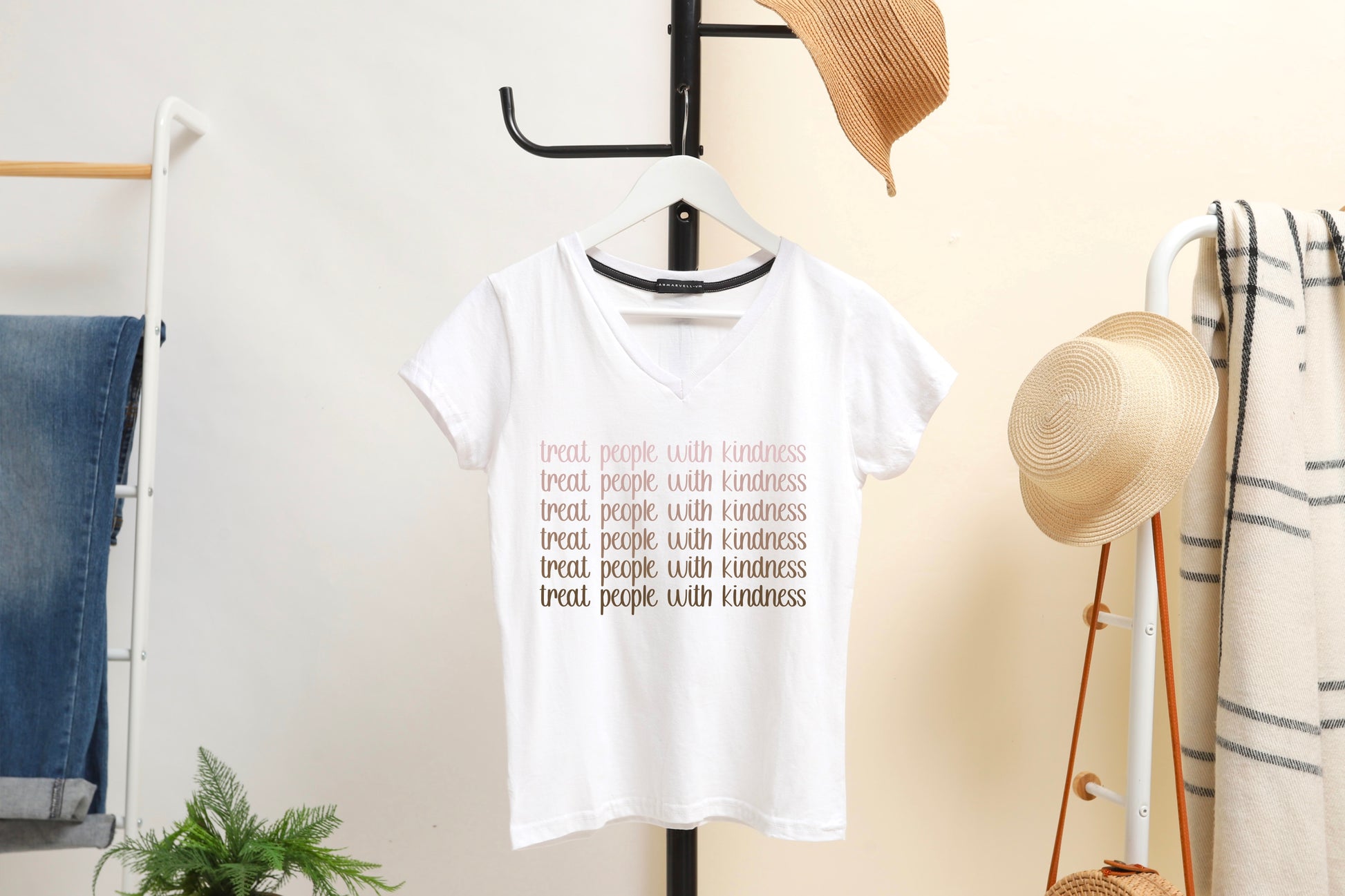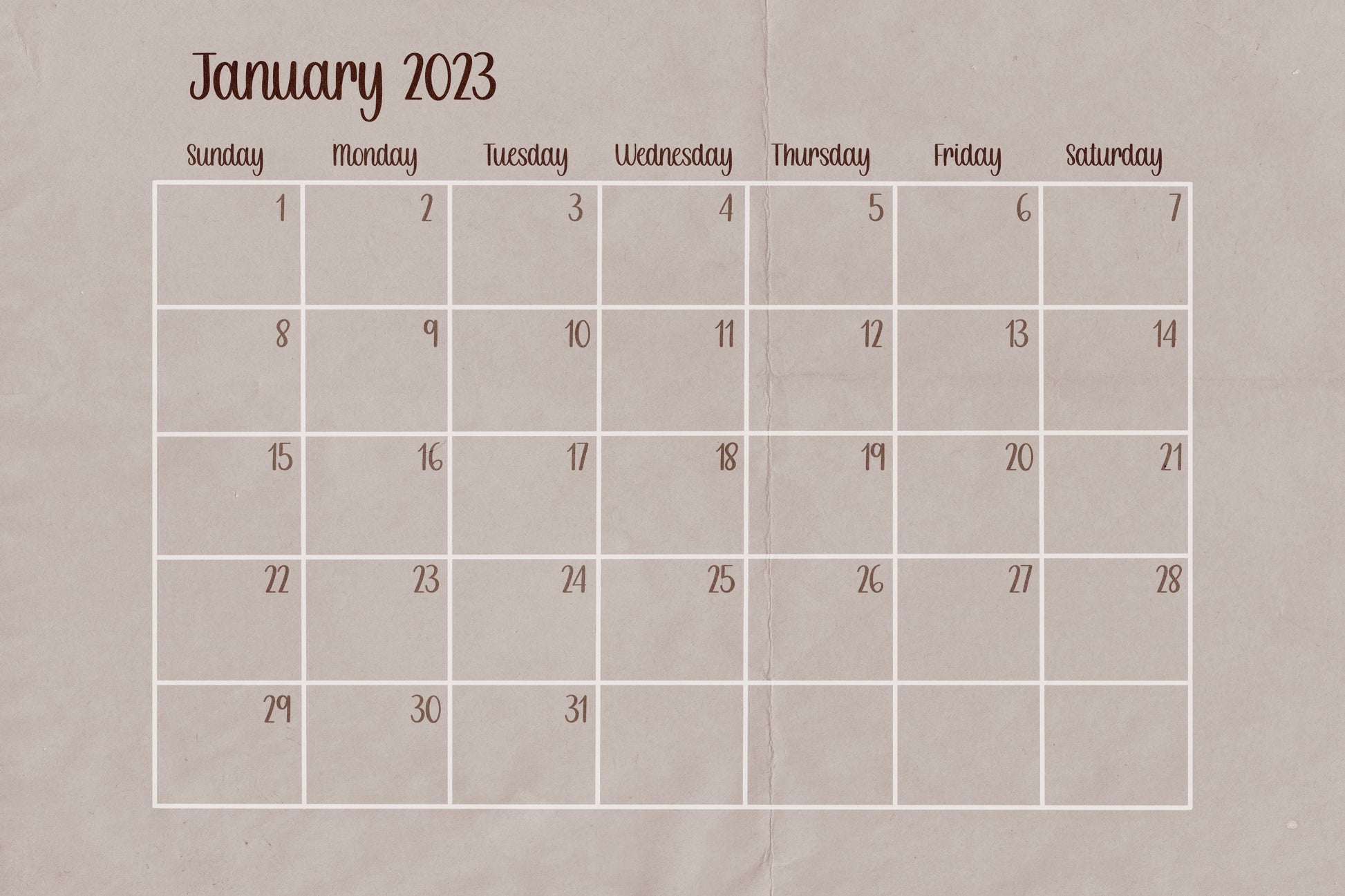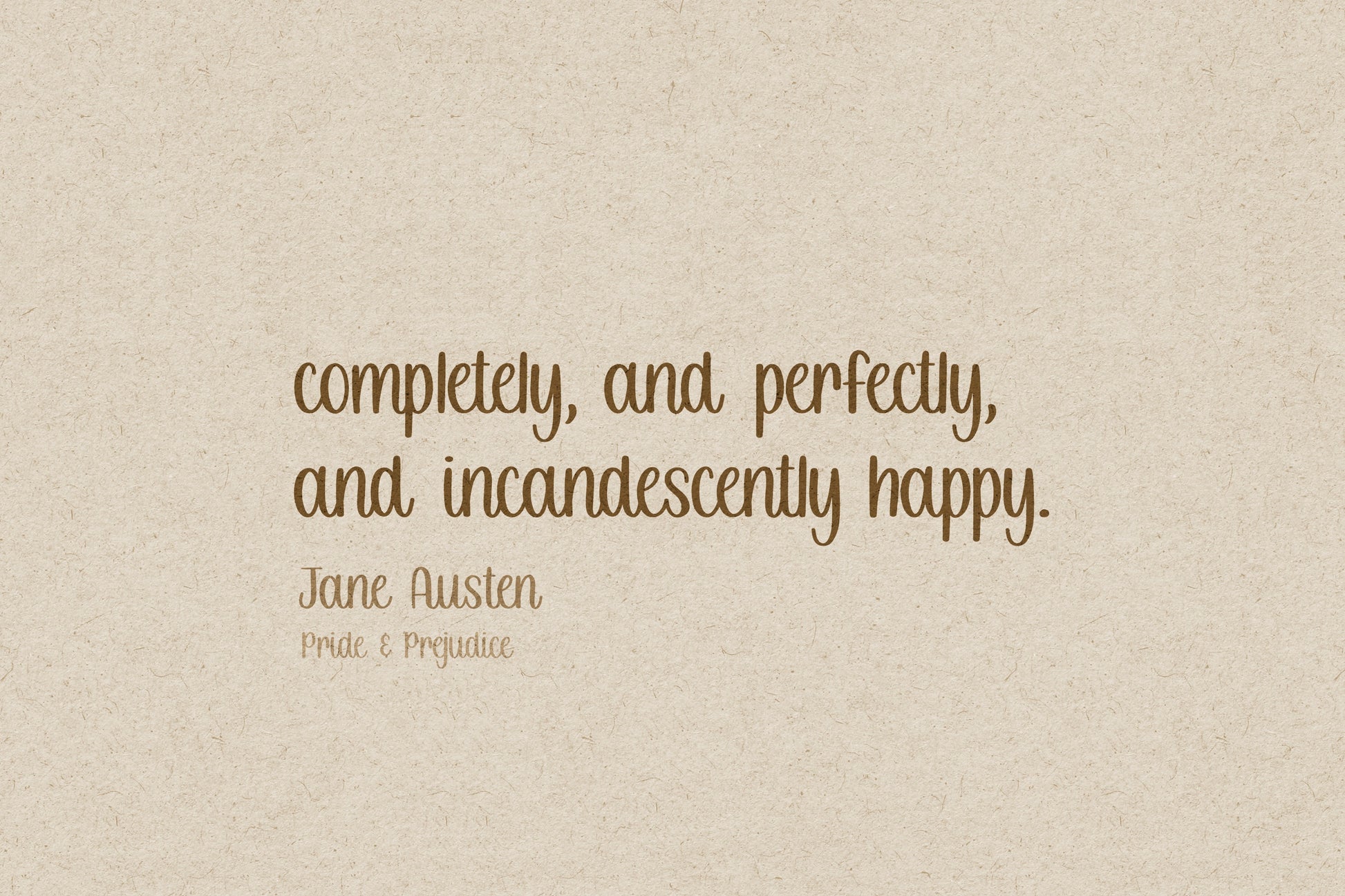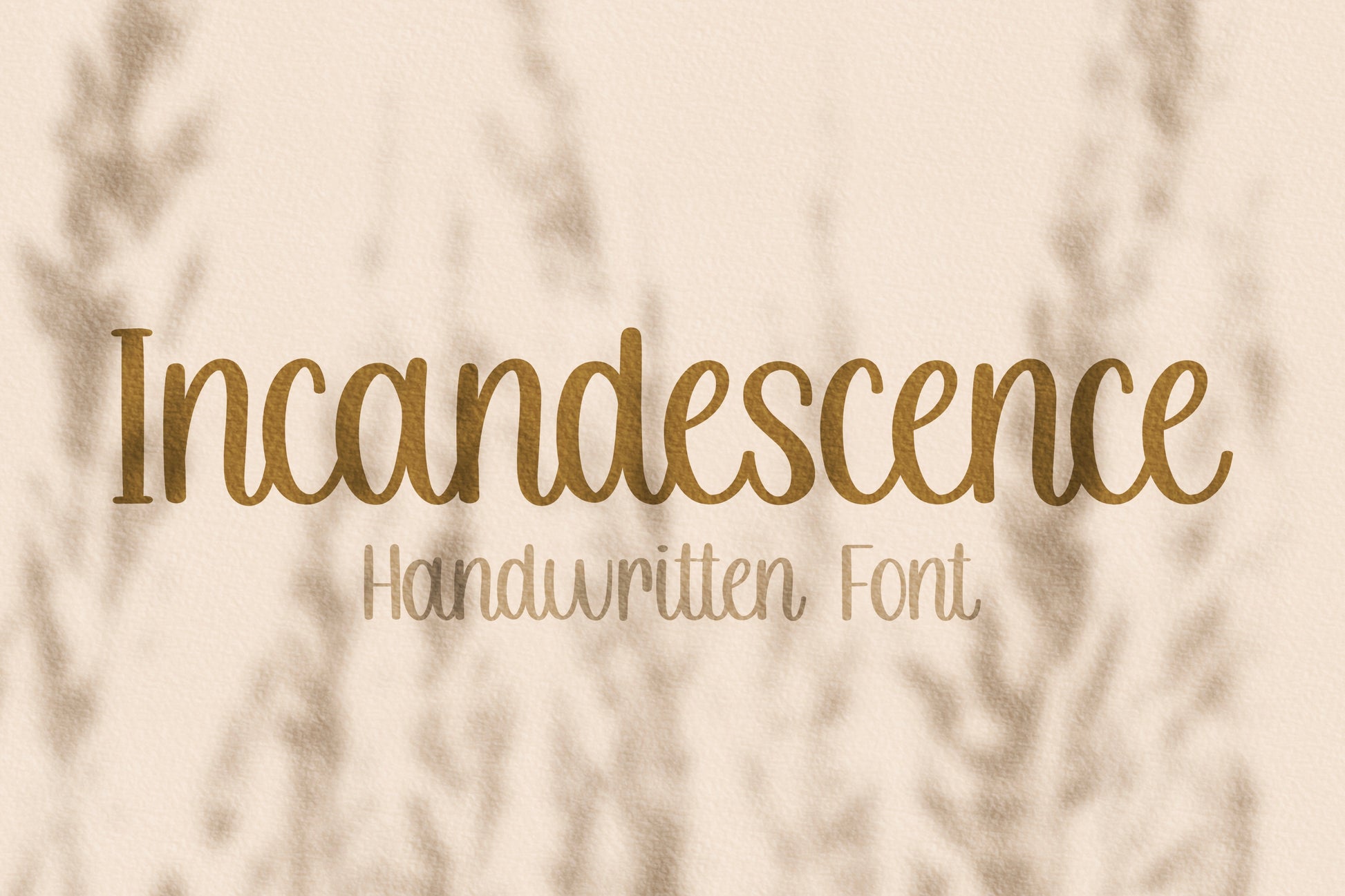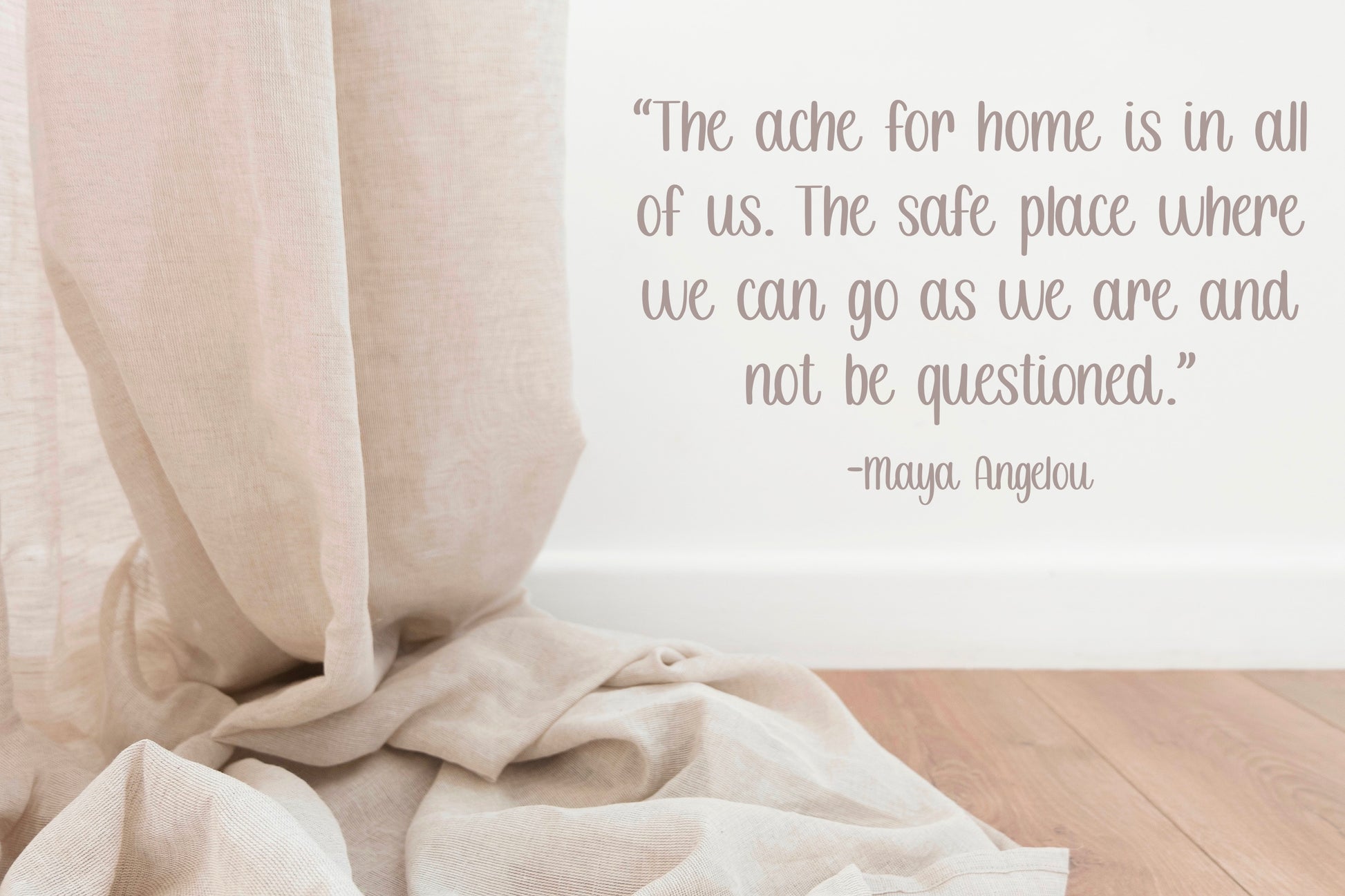
Incandescence Handwritten Font
This is my Incandescence handwritten/hand drawn font. This unique font is a casual & uniform font with a hint of script! Incandescence will add a fun, slightly organized, handmade feel to your design! It is especially perfect for using in planners and journals! It would also be great for stickers, posters, t-shirts, invitations, quote designs, and any other cute design that you can think of!